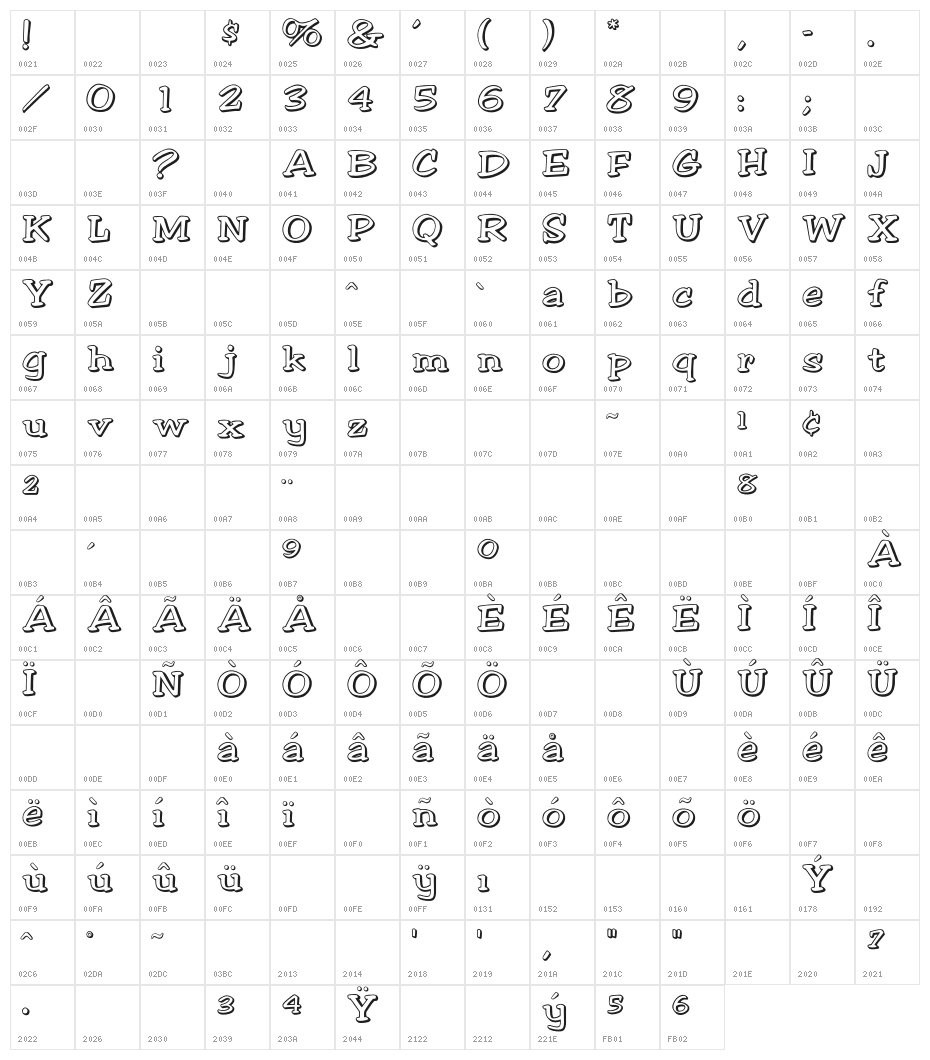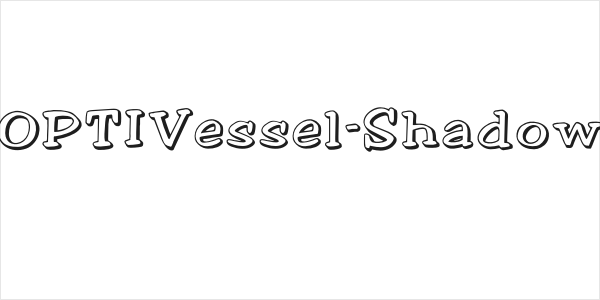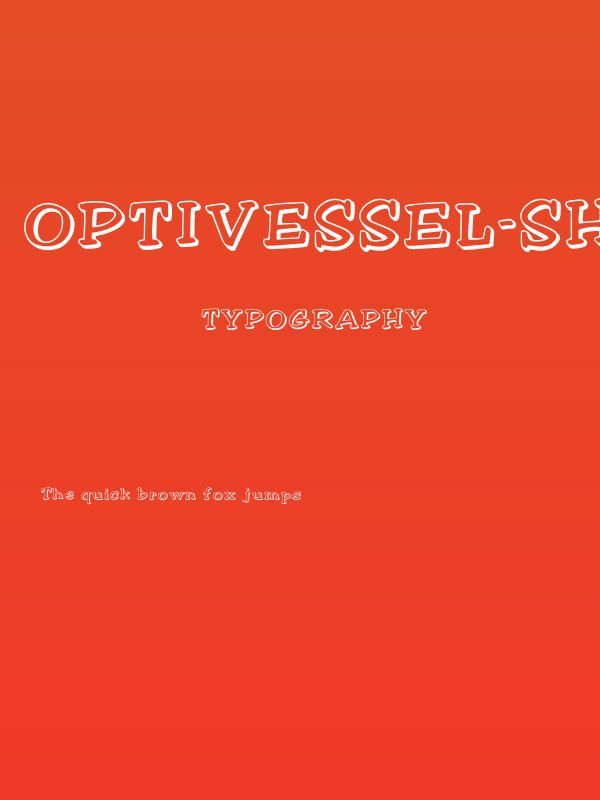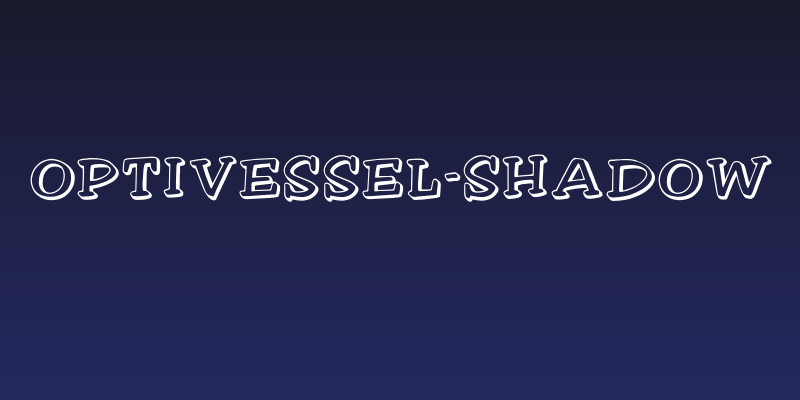
OPTIVessel-Shadow Font
OPTIVessel-Shadow Description
This font features a playful and bold design with a distinct shadow effect that gives each character a three-dimensional appearance. The letters are outlined with a thick black border, enhancing their visibility and adding a touch of whimsy. The uppercase and lowercase letters maintain a consistent style, with rounded edges and a slightly irregular shape that contributes to a casual, hand-drawn aesthetic. The numerals and special characters follow the same design principles, ensuring uniformity across all glyphs. This font is ideal for projects that require a fun and engaging visual element, making it suitable for children's books, playful branding, or eye-catching headlines.
| Overall Style | Playful, Whimsical |
| Proposed Projects | Ideal for children's books, playful branding, and eye-catching headlines. |